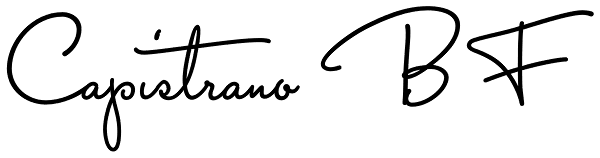
Capistrano BF
Capistrano BF is an all-connecting, monolinear handwritten script that exudes much verve and vigor. A number of Automatic Ligatures and Contextual Alternates, for beginning and ending (lowercase) letters are included in the font, along with...